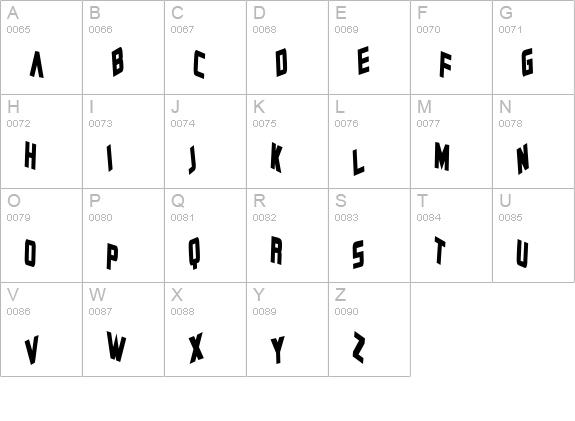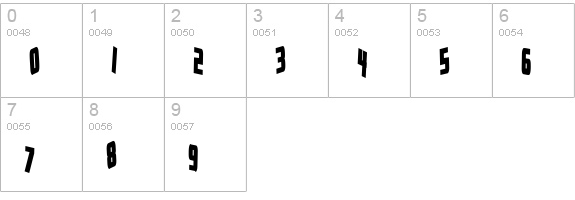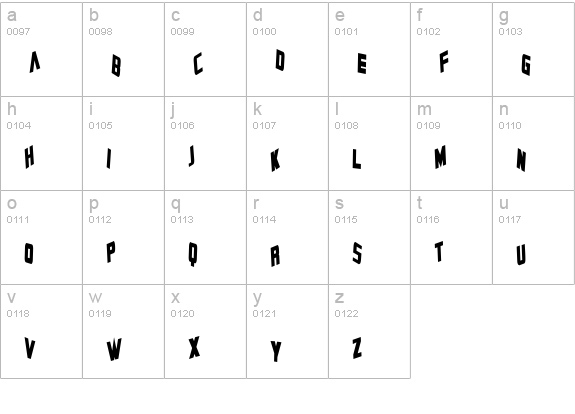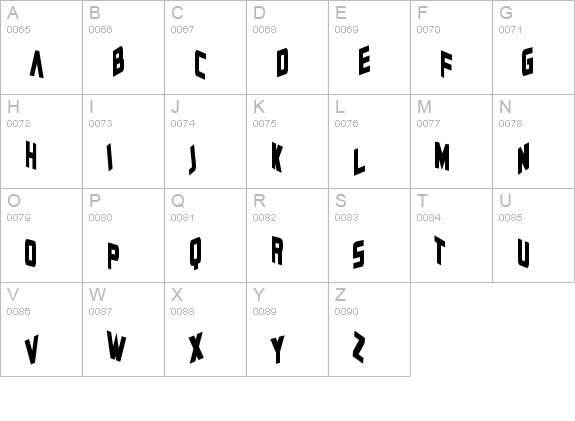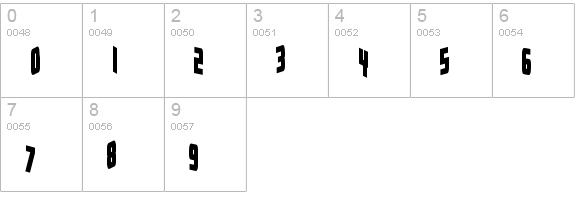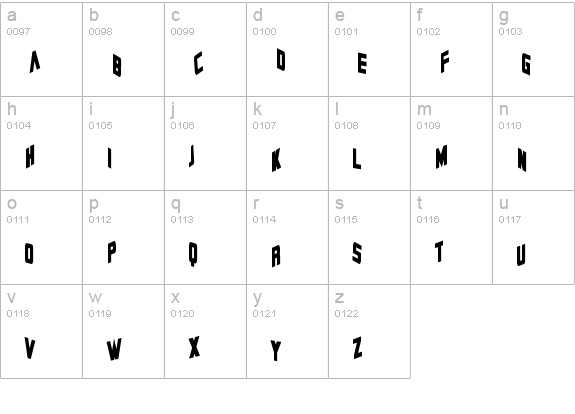
Zero Gravity Bold is a strong, high-contrast variant in the Zero typeface family \xE2\x80\x94 well suited to headlines, attention-grabbing titles, and strong calls-to-action.